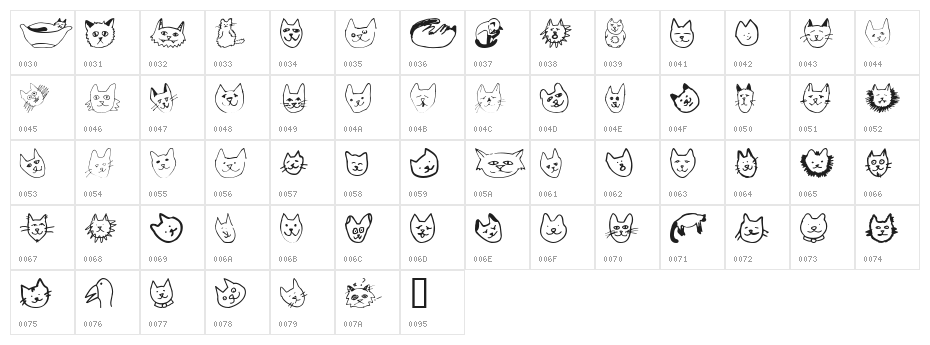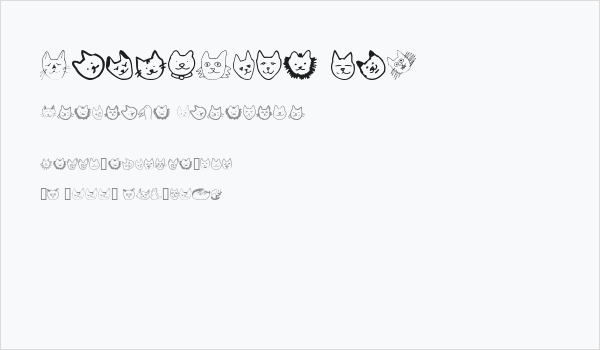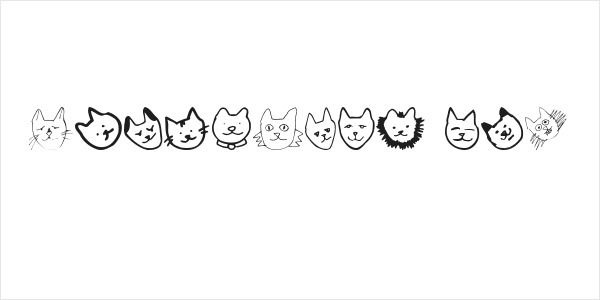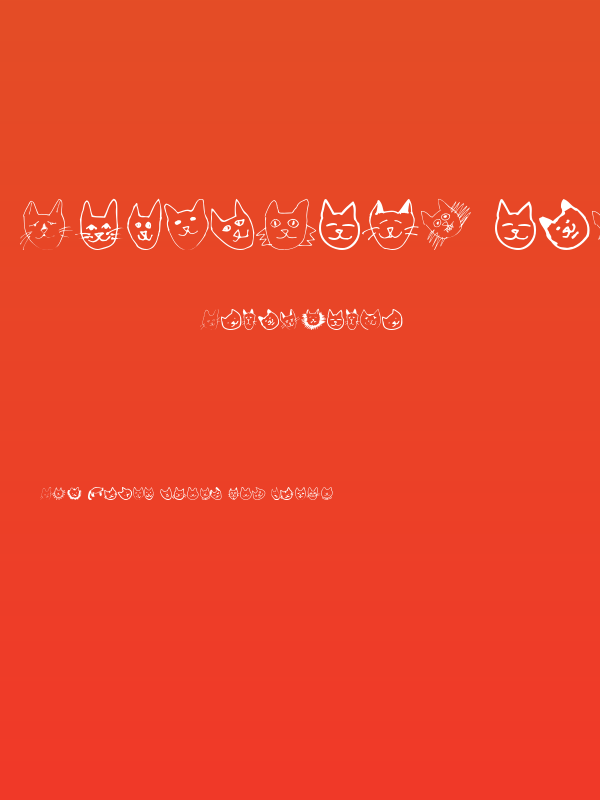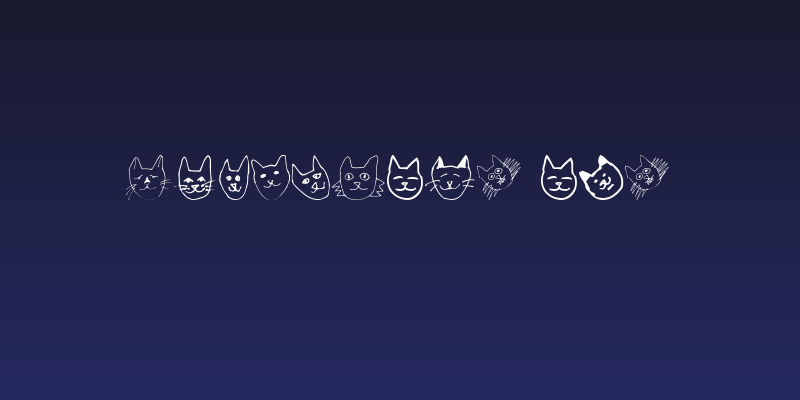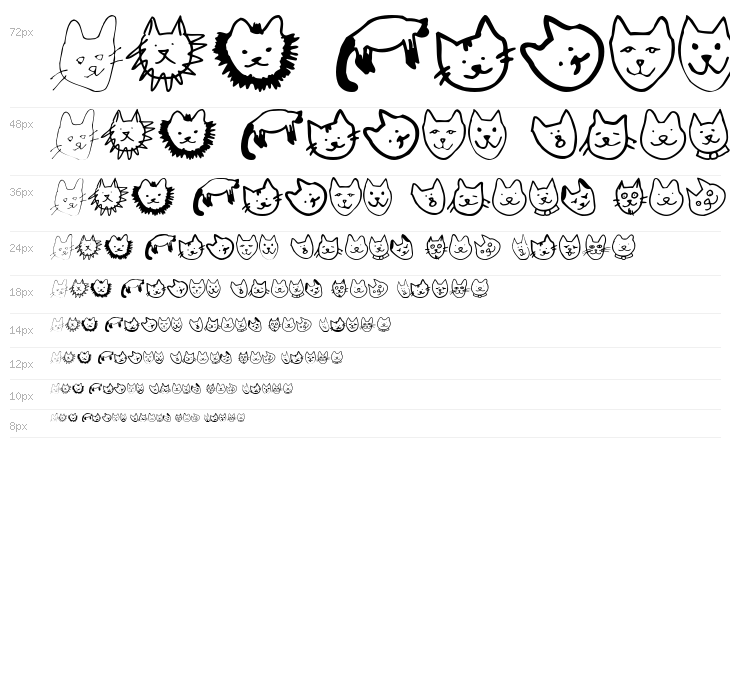
LinusFace AOE Font
LinusFace AOE Description
A playful, hand-drawn decorative font featuring a variety of whimsical cat faces and a few other animals, each character uniquely illustrated with expressive line art and quirky details.
Overall StylePlayful, Whimsical, Decorative
Use CaseLogos, Headlines, Posters, Themed event materials
Proposed ProjectsChildrenÒ€ℒs books, pet-related branding, greeting cards, playful posters, educational materials.